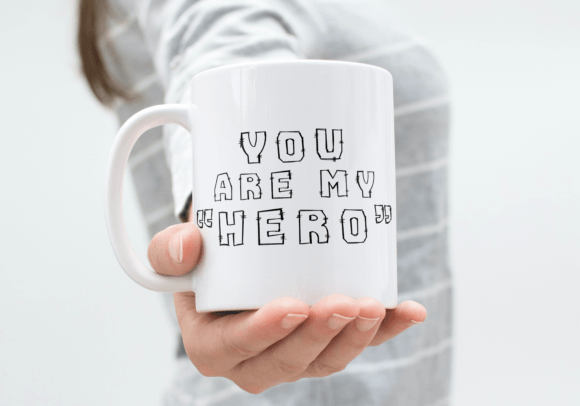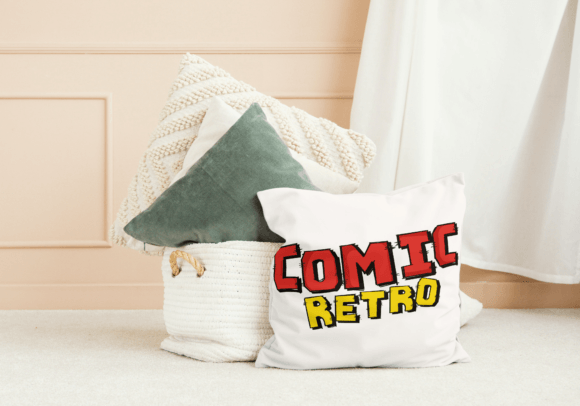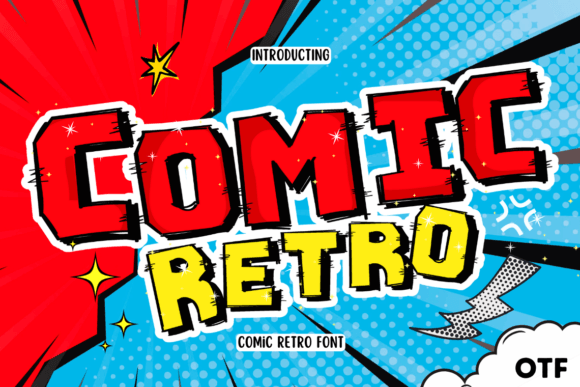
Comic Retro Font
Comic Retro —a playful and versatile typeface perfect for cartoons, comic art, retro-inspired designs, alphabets, and various other creative endeavors. Each letter exudes a lively and nostalgic charm reminiscent of classic comic book styles. Whether for comic strips, retro posters, or any project that embraces a fun and timeless aesthetic, this font seamlessly blends a playful look with a touch of retro flair. Elevate your designs with the whimsical allure of Comic Retro font, turning every project into a visually engaging and authentically retro experience. Transform your creations into a celebration of comic book charm and versatile design with this uniquely crafted typeface!